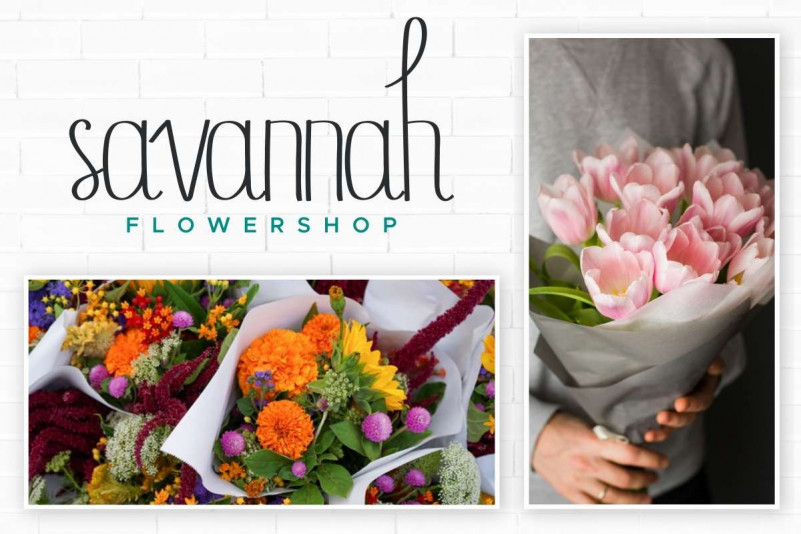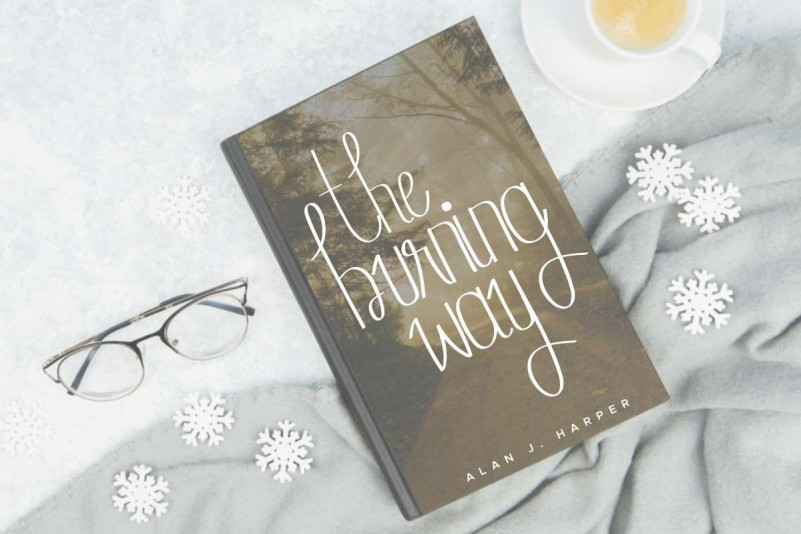
Harley Smith Font, Ideal for logos, handwritten quotes, product packaging, header, poster, merchandise, social media & greeting cards.
| Designer Name: | Origin Type |
| Classification: | Handwritten Fonts |